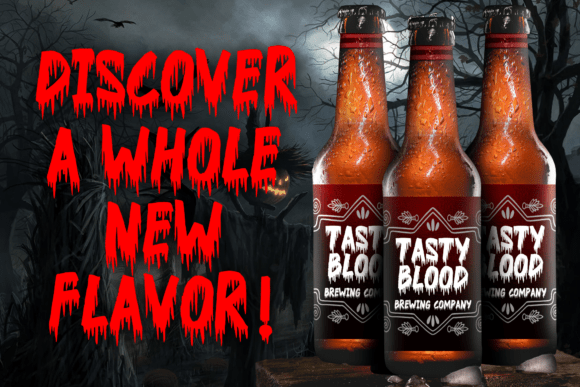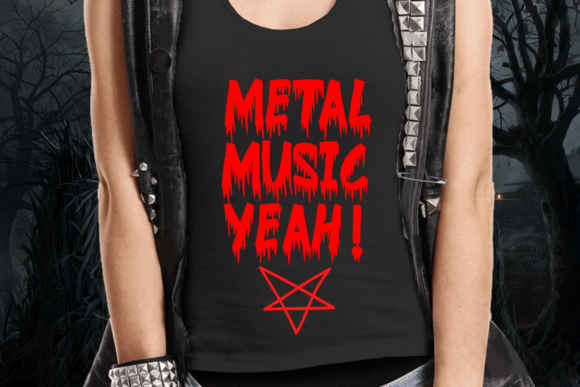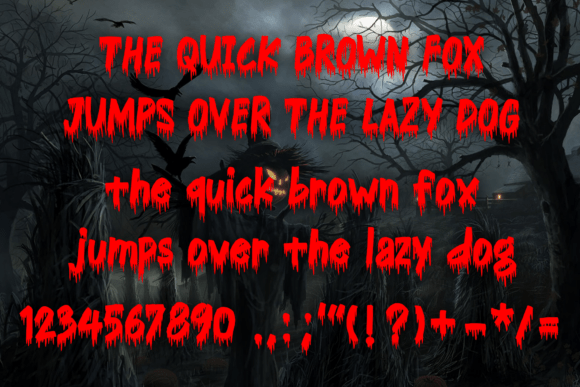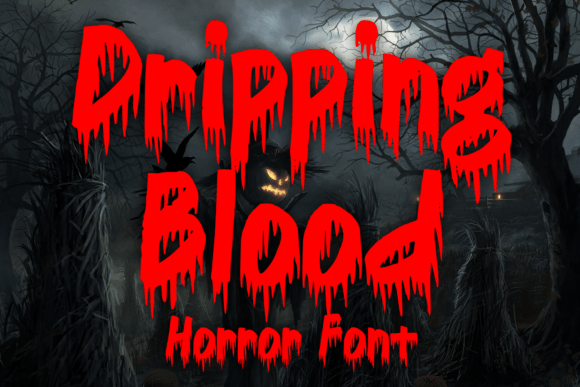
Dripping Blood Font: The Ultimate Horror Touch for Designers and Crafters
Are you looking for a font that adds a spooky touch to your designs? Look no further than the Dripping Blood Font! Inspired by vintage horror movies, horror comics, and metal music, this font is perfect for creating a haunting atmosphere in your designs. In this article, we’ll explore the features and uses of the Dripping Blood Font, and how it can elevate your horror and Halloween-themed projects.
What is Dripping Blood Font?
Dripping Blood Font is a cool ink drips font that is designed to give your designs a creepy and eerie feel. The font features dripping blood effects that add a sense of horror and suspense to your text. With its bold and distressed look, it’s perfect for creating eye-catching designs that will leave a lasting impression on your audience.
Inspiration from Vintage Horror
The Dripping Blood Font is inspired by the classic horror movies and comics of the past. The font’s design is reminiscent of the bold and gritty style of old-school horror, with its dripping blood effects and distressed texture. Whether you’re creating a design for a horror movie poster, a scary book cover, or a Halloween party invitation, this font is sure to evoke the spirit of the horror genre.
Perfect for Horror and Halloween Themes
The Dripping Blood Font is specifically designed for horror and Halloween-themed projects. Its creepy and eerie feel makes it perfect for creating designs that will send shivers down your audience’s spine. Whether you’re designing merchandise like t-shirts and clothing, or creating scary book designs, Halloween party needs, greeting cards, stickers, posters, or banners, this font is sure to add a touch of horror to your designs.
Uses of Dripping Blood Font
The Dripping Blood Font is versatile and can be used for a wide range of projects, including:
- Merchandise: t-shirts, clothing, hats, and more
- Book designs: scary book covers, horror novel designs, and more
- Halloween party needs: invitations, decorations, and more
- Greeting cards: spooky birthday cards, Halloween cards, and more
- Stickers: creepy stickers for laptops, water bottles, and more
- Posters: horror movie posters, concert posters, and more
- Banners: spooky banners for Halloween parties, horror events, and more
Why Choose Dripping Blood Font?
There are many reasons why you should choose the Dripping Blood Font for your horror and Halloween-themed projects. Here are a few:
- Unique and eye-catching design
- Perfect for horror and Halloween themes
- Versatile and can be used for a wide range of projects
- High-quality font with distressed texture and dripping blood effects
Tips for Using Dripping Blood Font
Here are a few tips for using the Dripping Blood Font in your designs:
- Use it sparingly: the Dripping Blood Font is bold and attention-grabbing, so use it sparingly to avoid overwhelming your design
- Pair it with other fonts: try pairing the Dripping Blood Font with other fonts to create a unique and interesting design
- Experiment with colors: try using different colors to create a unique and eye-catching design
- Use it in combination with images: try using the Dripping Blood Font in combination with images to create a creepy and eerie design